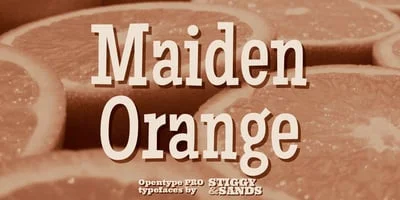
Maiden Orange Pro Font
Maiden Orange Pro Font is perfect for autumn festival branding, harvest celebration posters, pumpkin spice product packaging, fall fashion labels, seasonal restaurant menus, citrus fruit advertising, warm beverage campaigns, and cozy seasonal marketing materials. This vibrant typeface excels in applications where autumn warmth and citrus freshness are essential.
What makes Maiden Orange Pro Font so exciting is its delightful ability to capture the warm glow and fresh vitality of autumn harvests through cheerful, orange-inspired letterforms that embody the comfort of seasonal traditions and the zesty energy of citrus fruits. The font features bright character shapes with harvest details and citrus-influenced styling that evoke images of golden leaves, fresh oranges, and cozy autumn gatherings. Its seasonal design philosophy combines harvest authenticity with contemporary warmth, making it perfect for seasonal brands seeking to convey comfort, freshness, and connection to autumn celebration culture and citrus fruit communities.
Maiden Orange Pro Font belongs to the seasonal display font family, specifically designed for autumn and citrus-themed branding applications. This typeface family emphasizes warm visual impact through harvest-inspired styling and citrus character elements, ensuring authentic seasonal presentation across various autumn and fresh fruit-focused design projects.
Brighten your seasonal designs with Maiden Orange Pro Font, a typeface that embodies the cheerful warmth of autumn harvests and citrus fruit freshness. This vibrant font delivers exceptional energy for seasonal applications, featuring comprehensive character sets with harvest symbols and citrus punctuation marks that capture the essence of autumn comfort and fresh fruit vitality. Its warmly crafted letterforms maintain excellent readability while preserving the authentic seasonal aesthetic across various sizes, from small product labels to large harvest festival banners. The font's distinctive autumn personality makes it invaluable for designers creating seasonal brands, harvest materials, and citrus content where conveying warmth, freshness, and seasonal celebration is crucial for connecting with audiences seeking cozy autumn experiences and fresh, natural product authenticity.